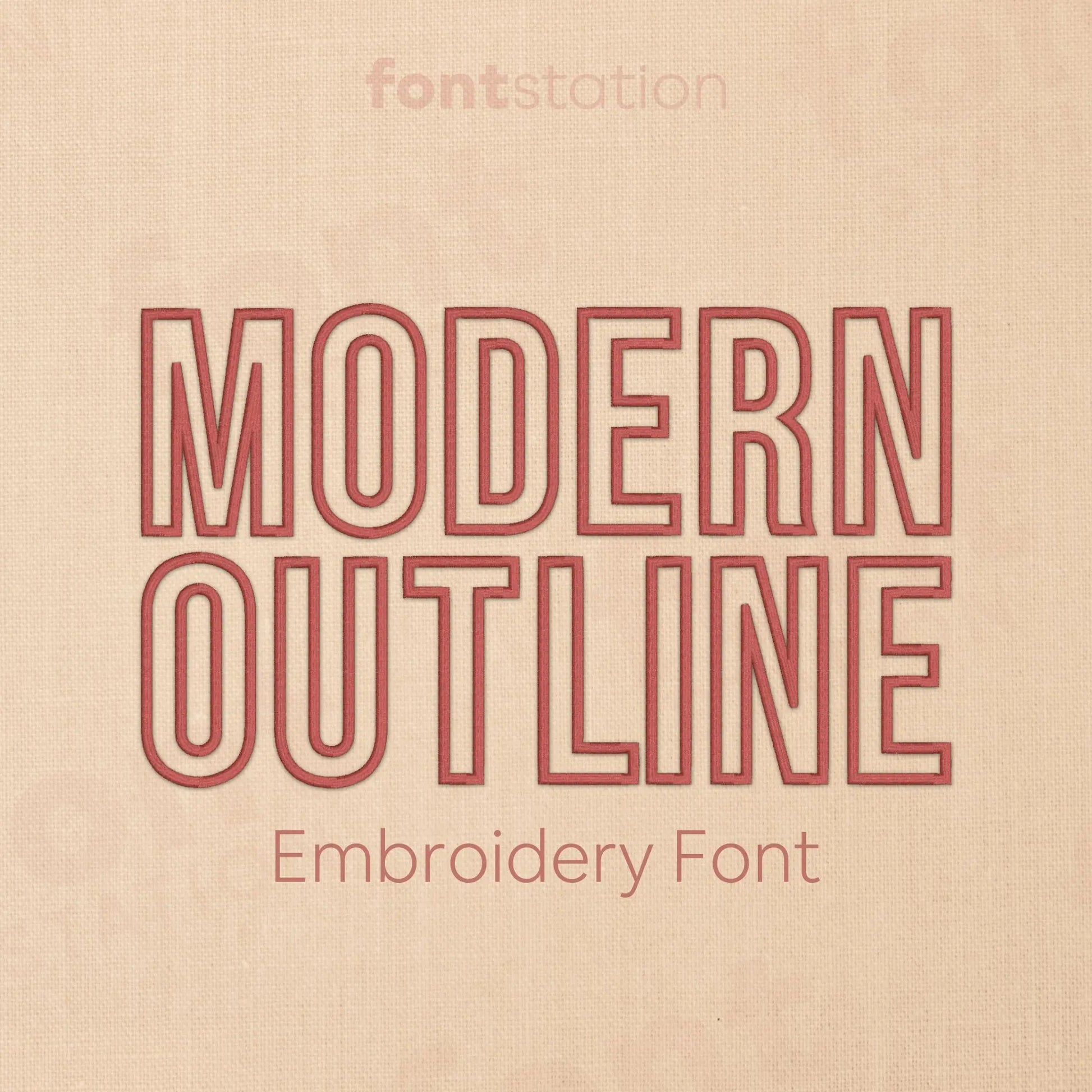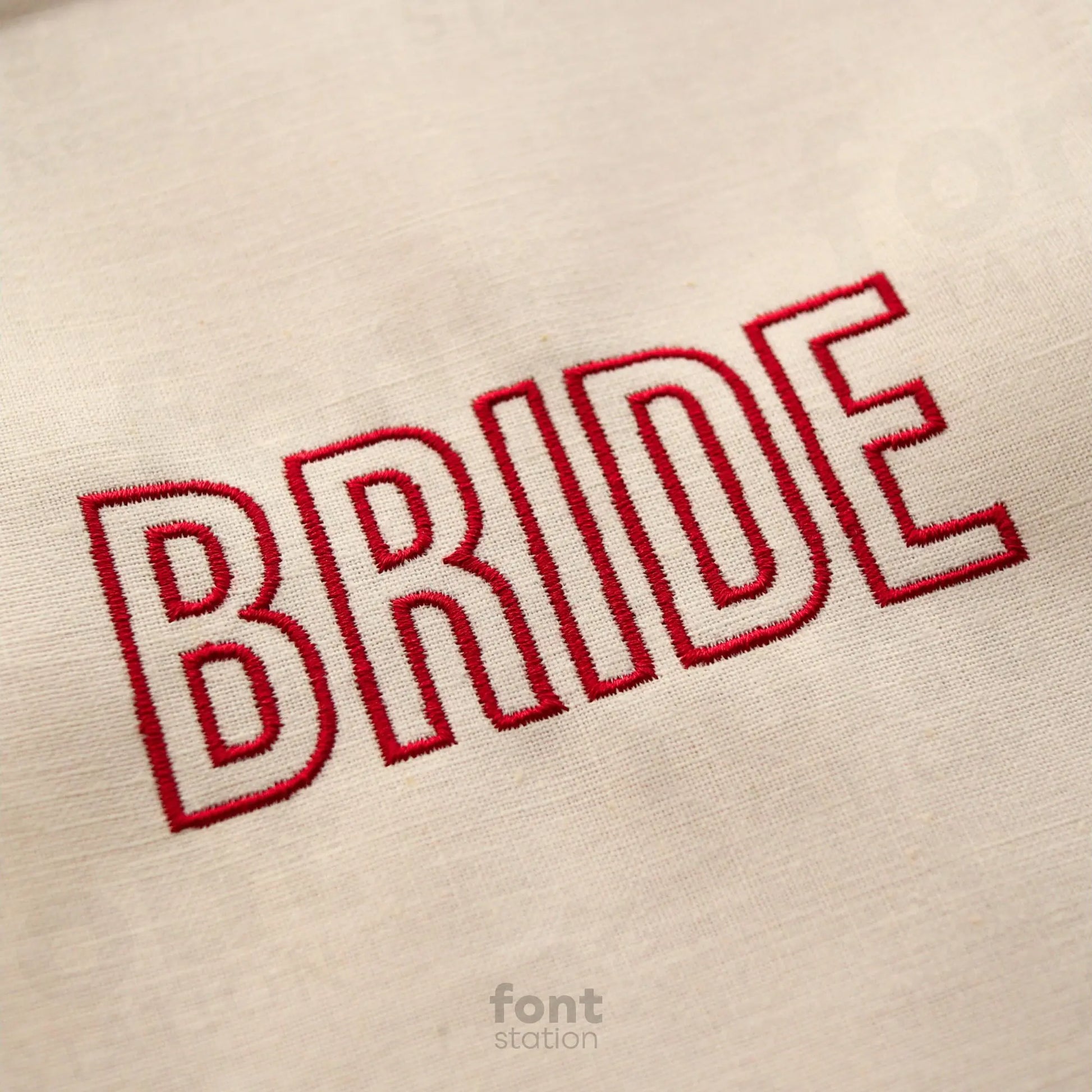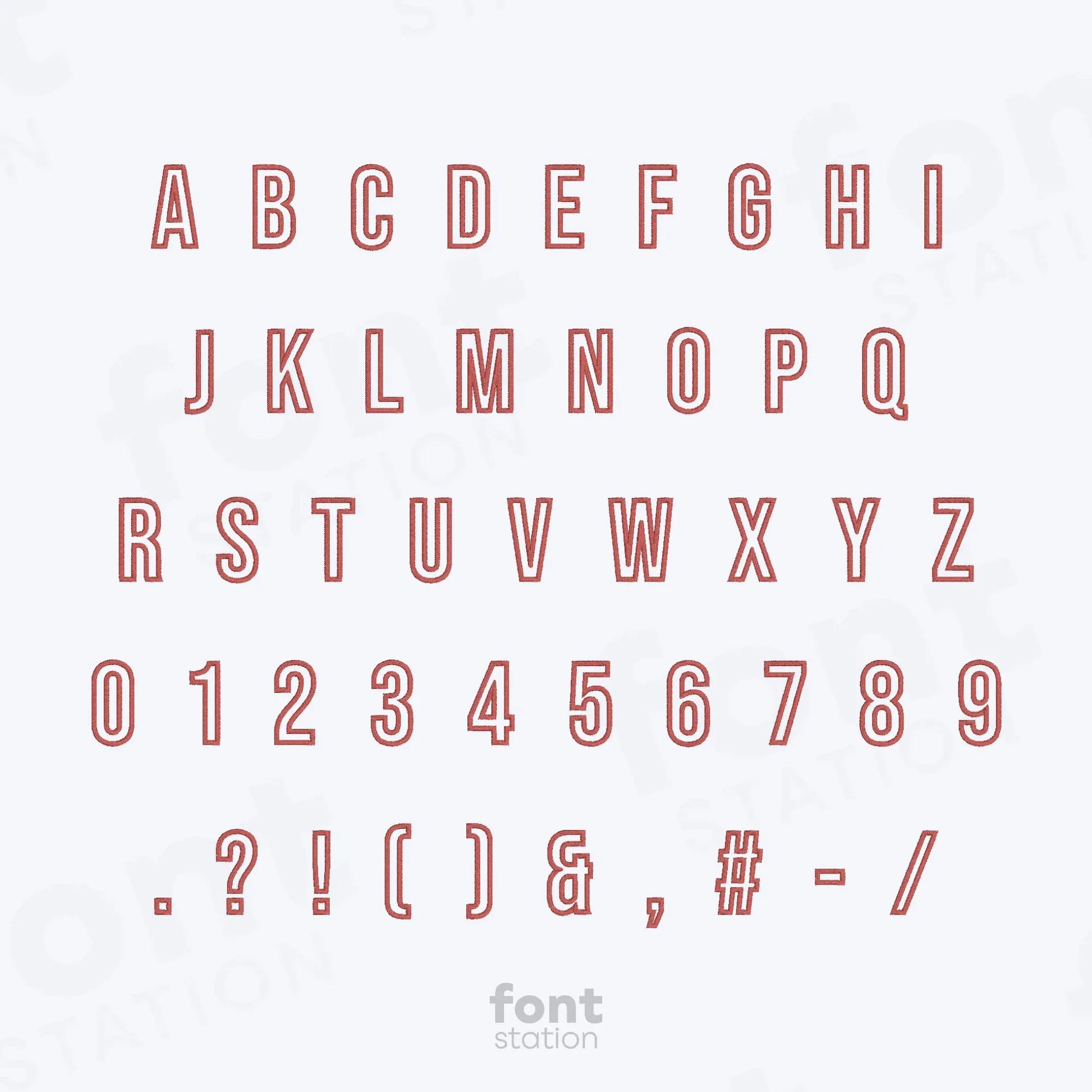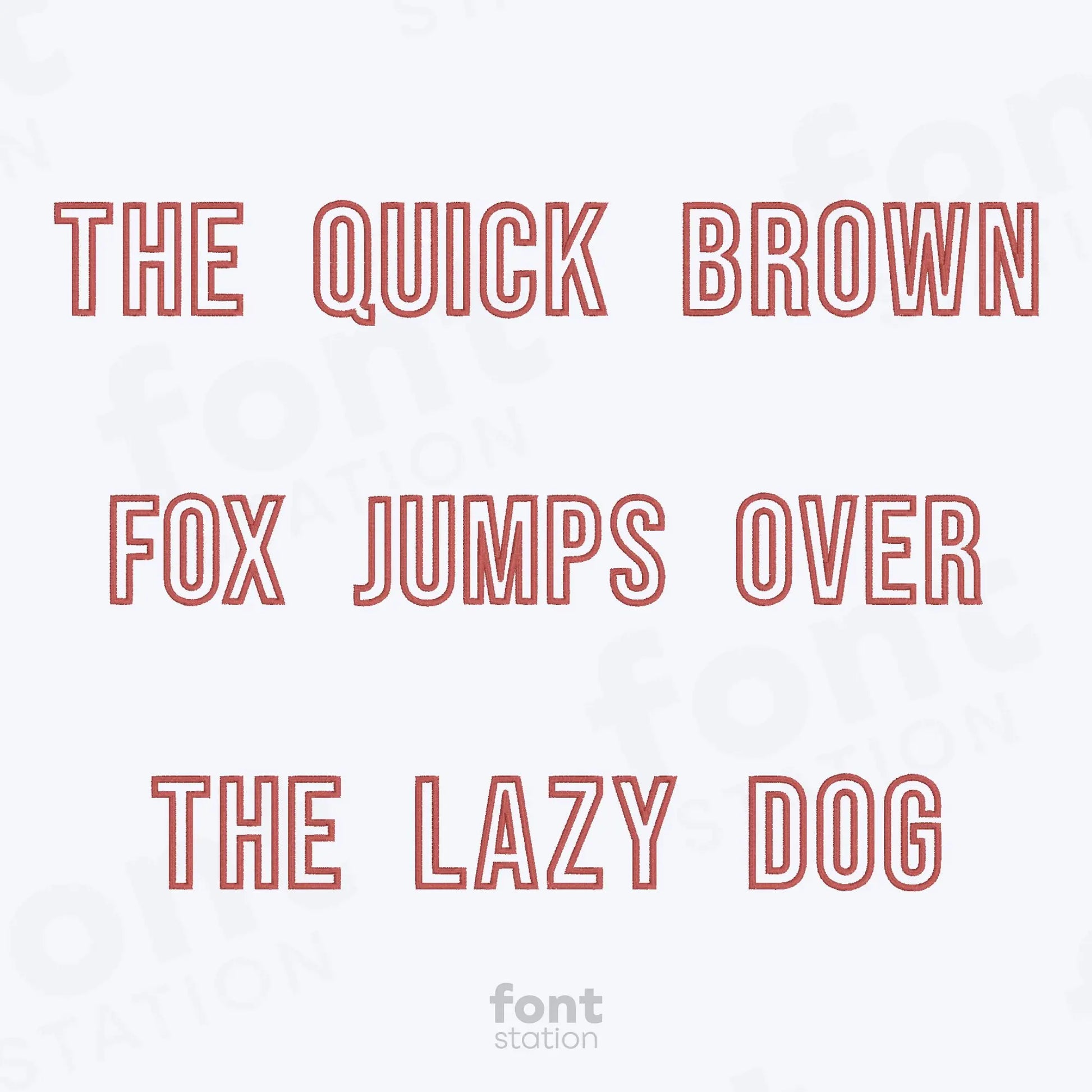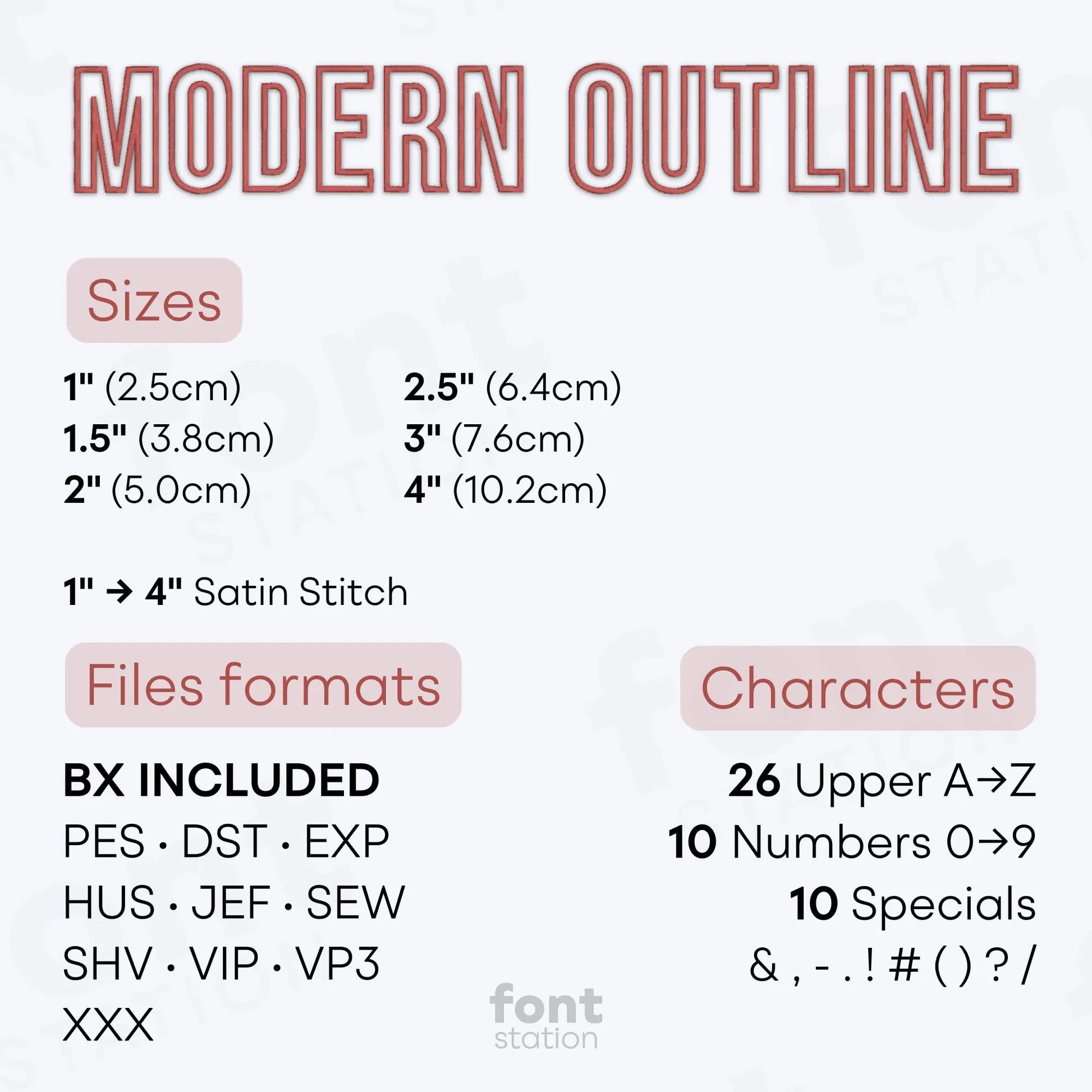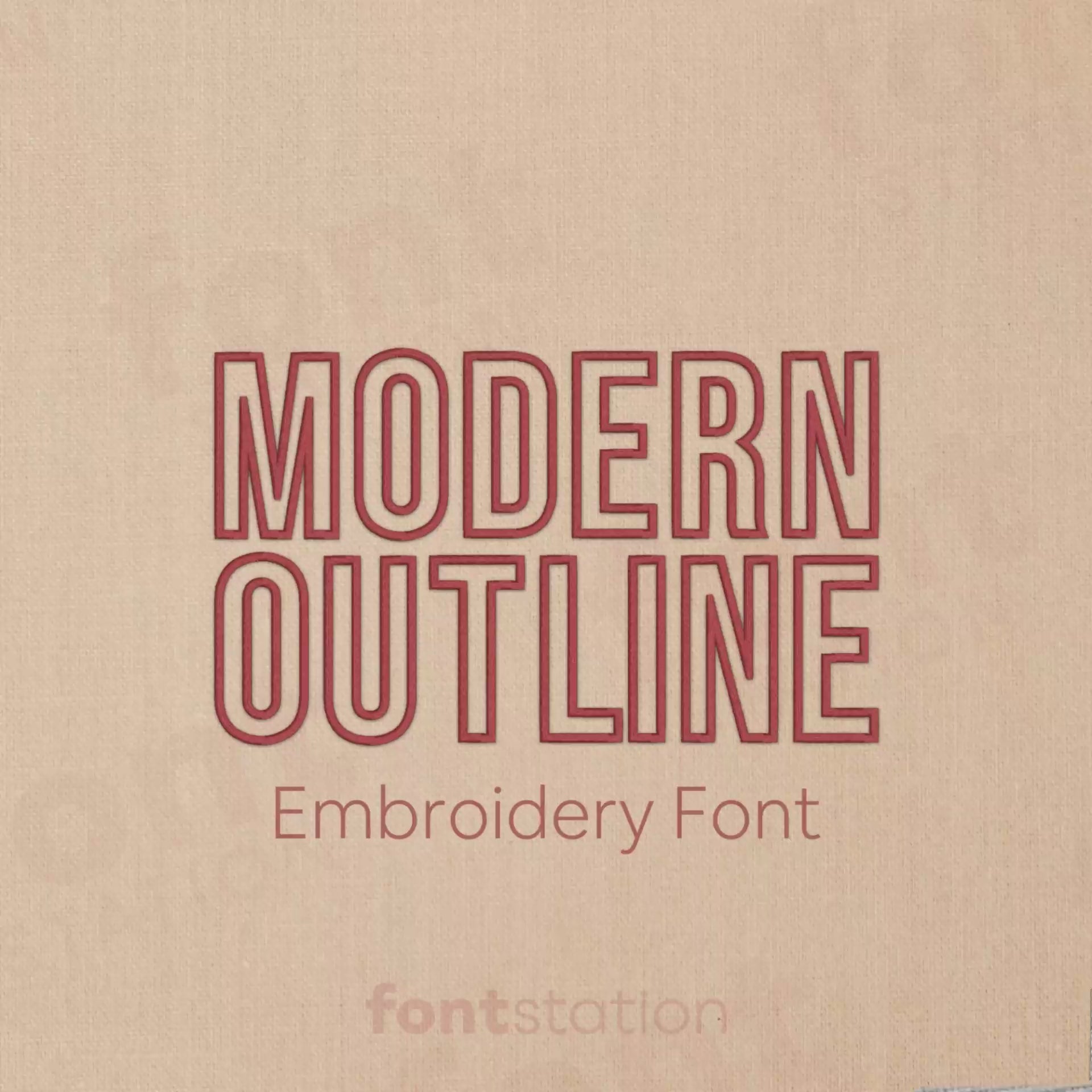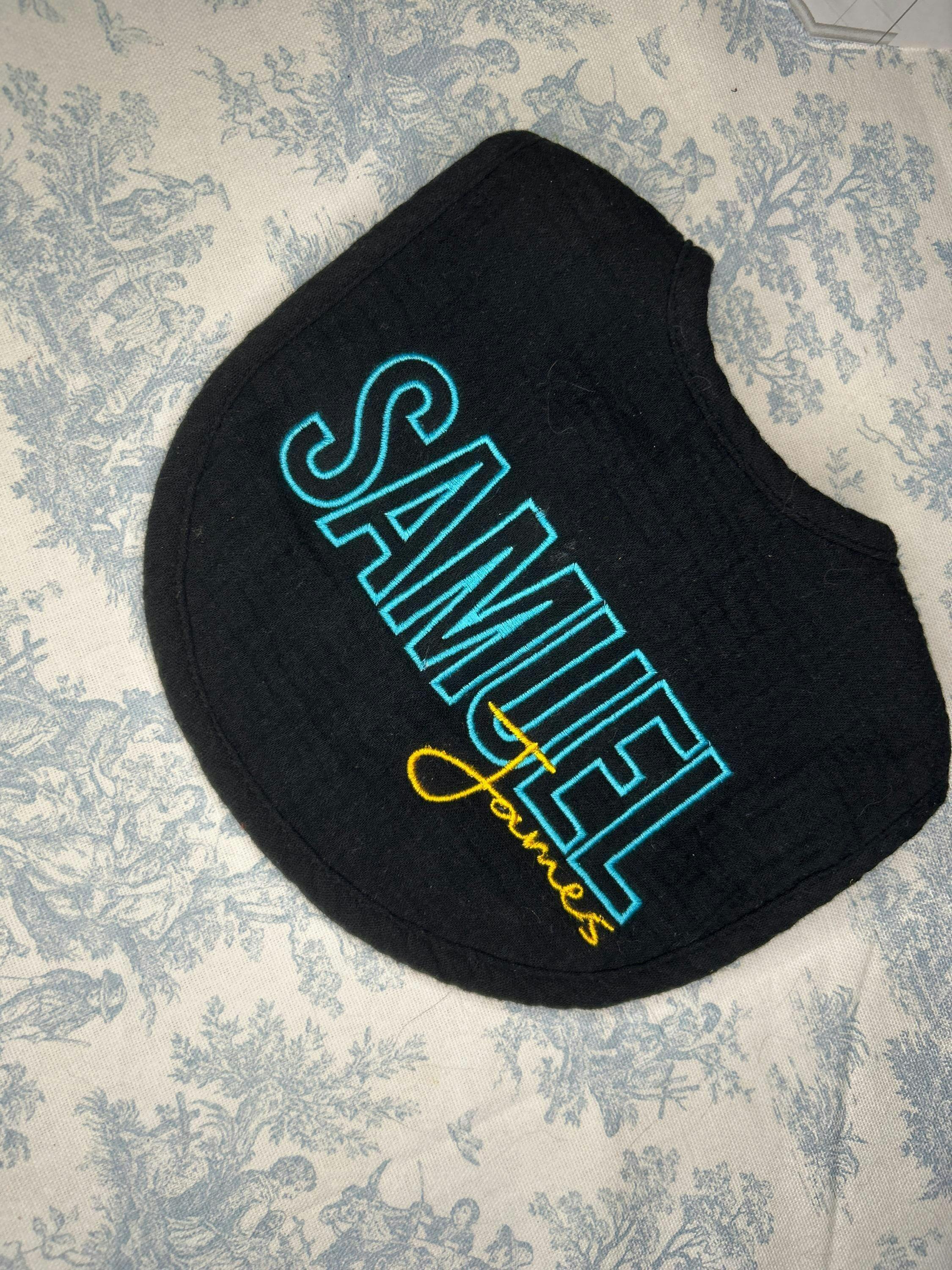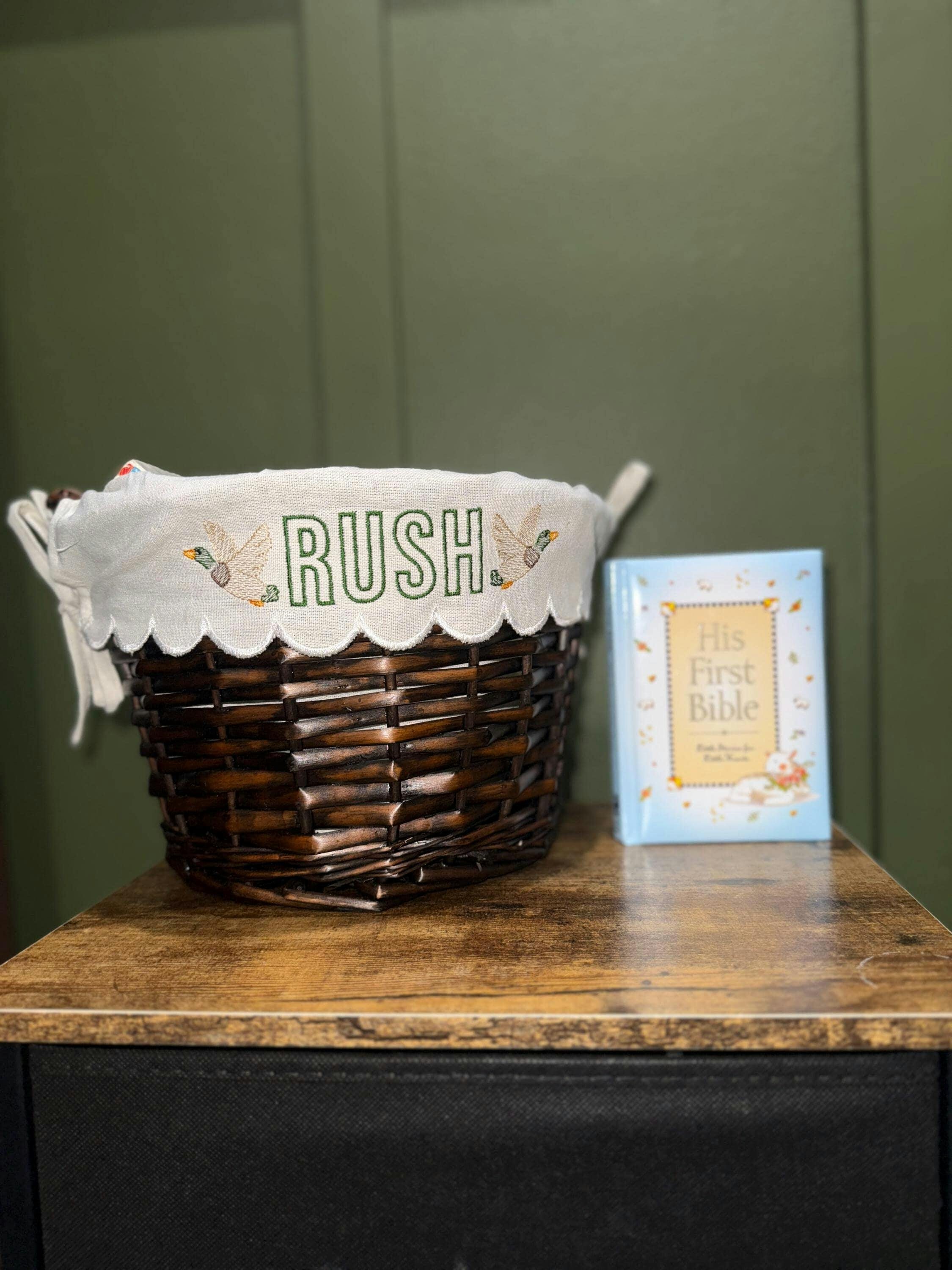
Modern Outline Embroidery Font
Our Modern Outline embroidery font features a thin, minimalist alphabet designed to stitch cleanly on any embroidery machine. These light letters are perfect for modern designs, adding elegance and detail to every project you create.
About the Modern Outline Embroidery Font
Satin Stitch: 1", 1.5", 2", 2.5", 3", and 4"
Characters: 26 uppercase, 10 numbers, and symbols & , - . ! # ( ) ? /
Our Modern Outline embroidery font brings sleek, minimalist style to your embroidery designs.
This thin outline embroidery alphabet features clean, modern letters with a lightweight feel, perfect for elegant embroidery projects, monograms, and contemporary gifts. The Modern Outline embroidery font is professionally digitized to stitch smoothly on any embroidery machine, delivering crisp, airy lines on a variety of fabrics. Available in BX, PES, DST, JEF, EXP, VP3, and HUS formats, it’s the perfect choice for minimalist and modern embroidery projects.